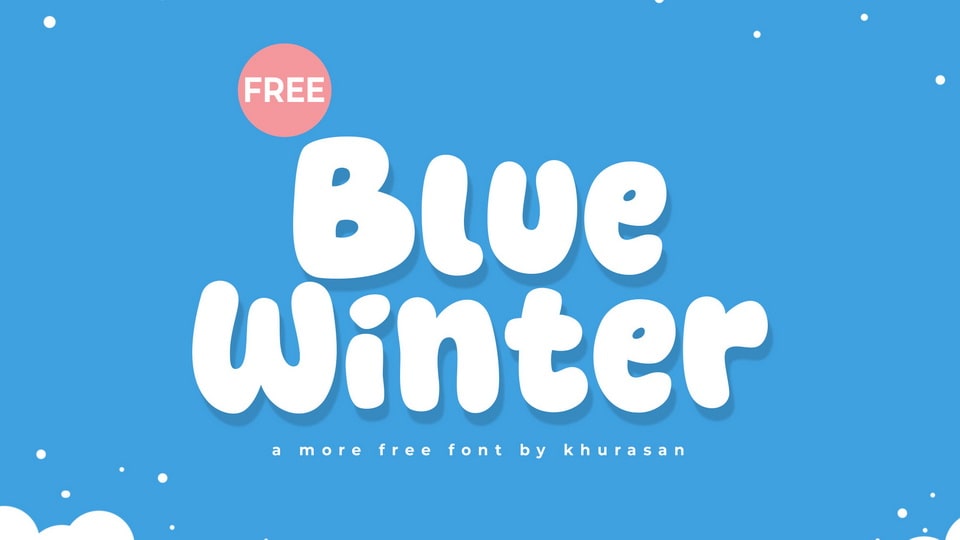
Download Blue Winter font, a rounded, cheerful display typeface that captures the calm and softness of winter days paired with a playful, modern spirit.